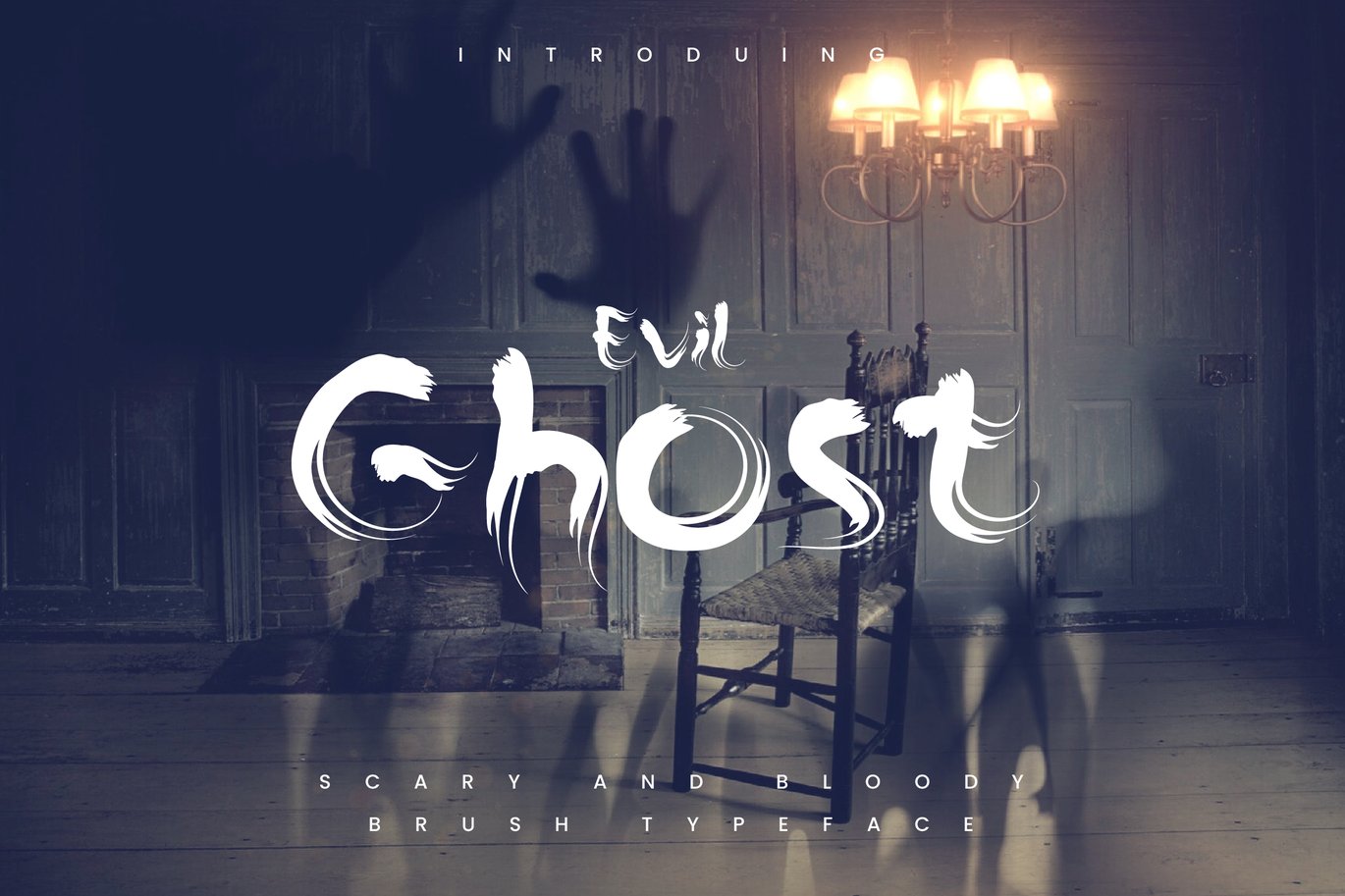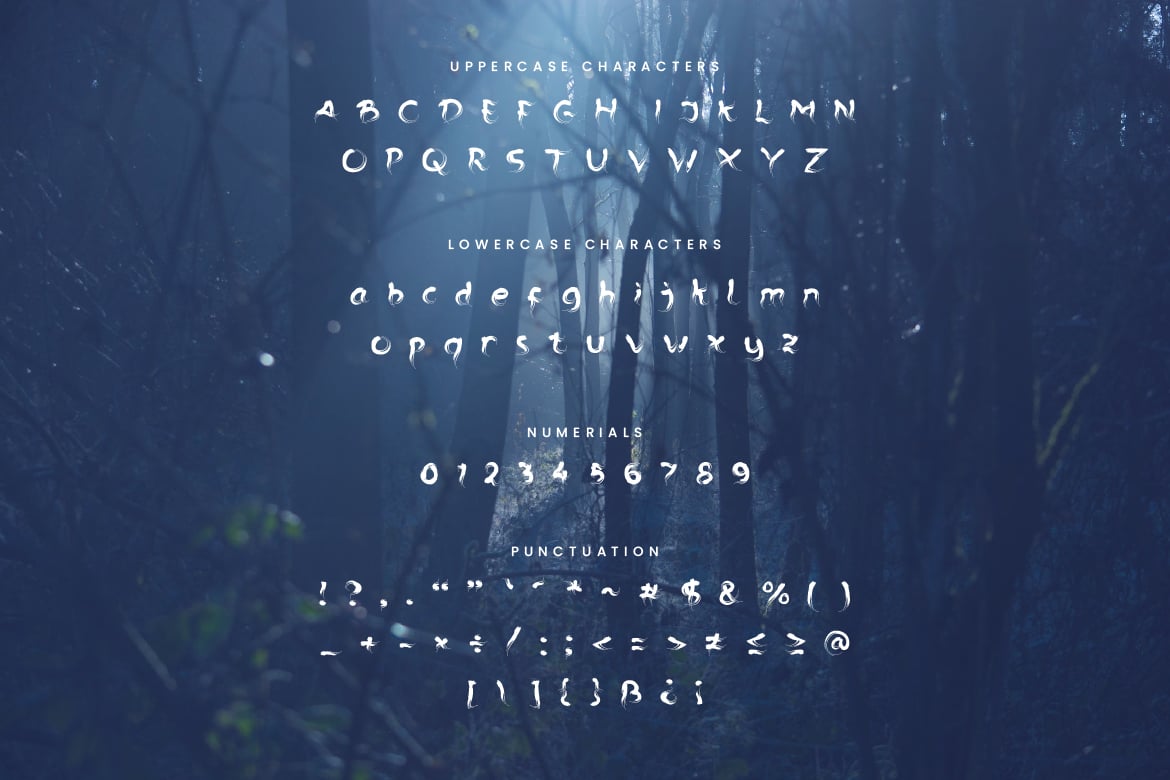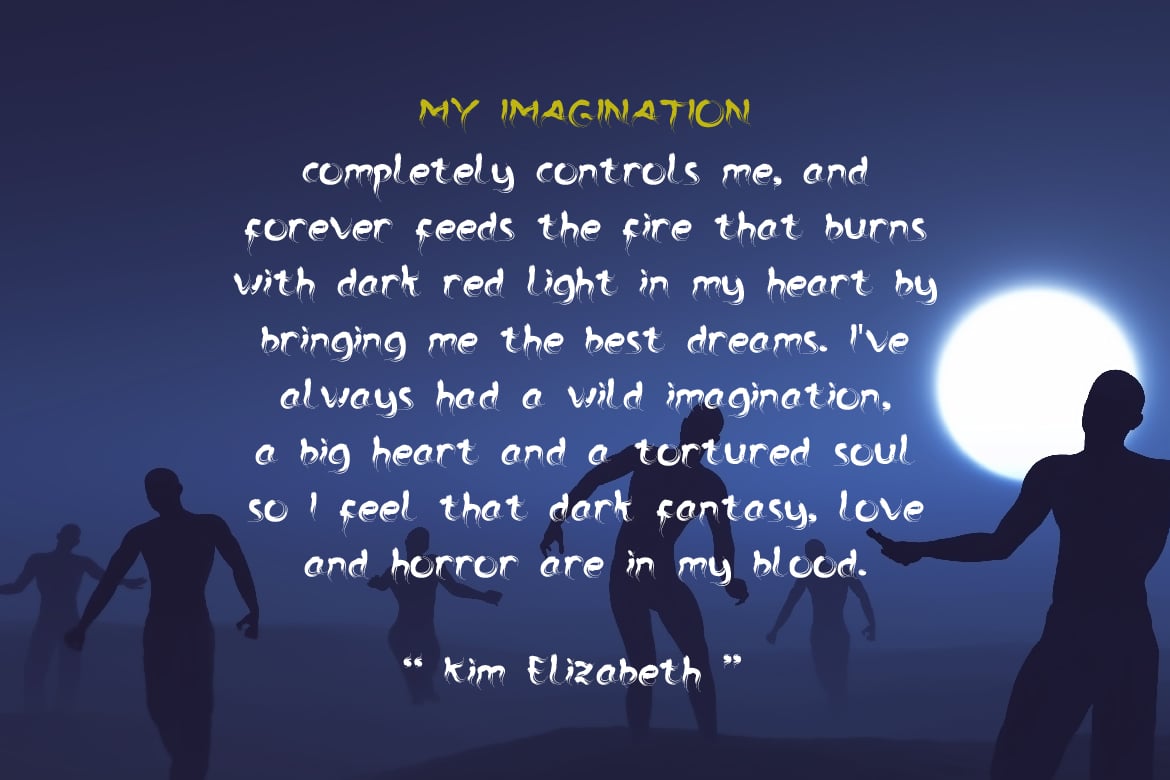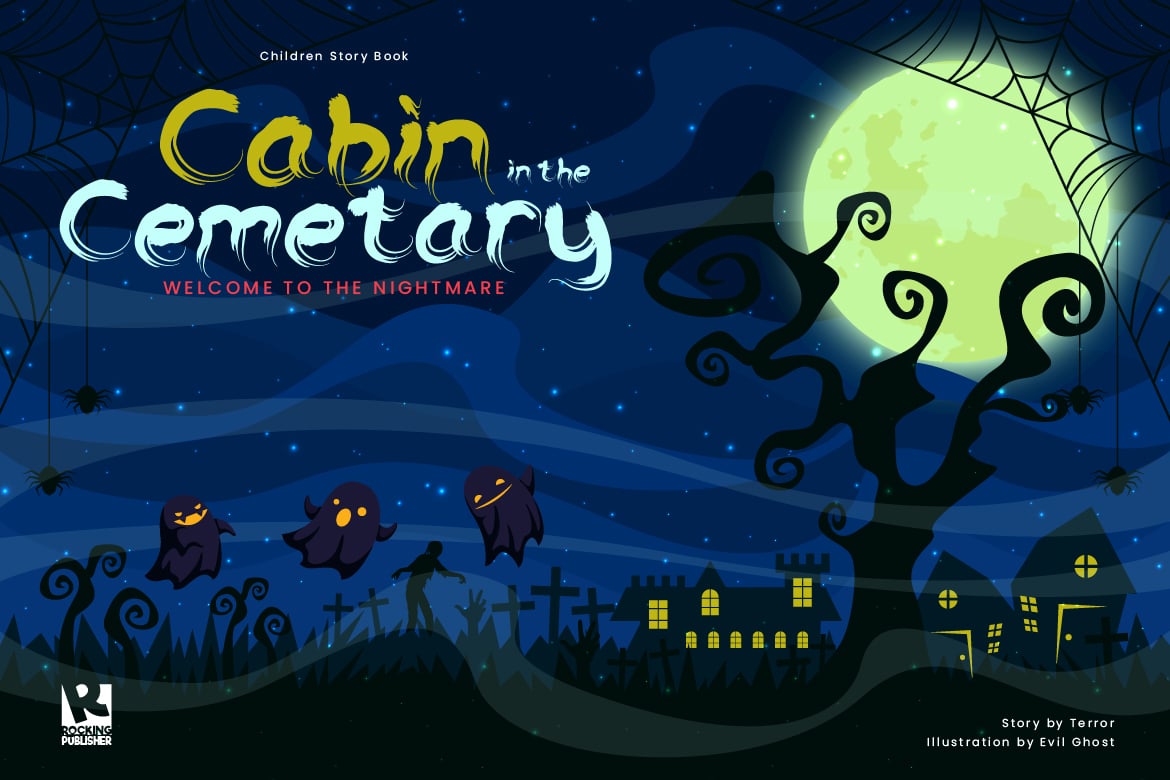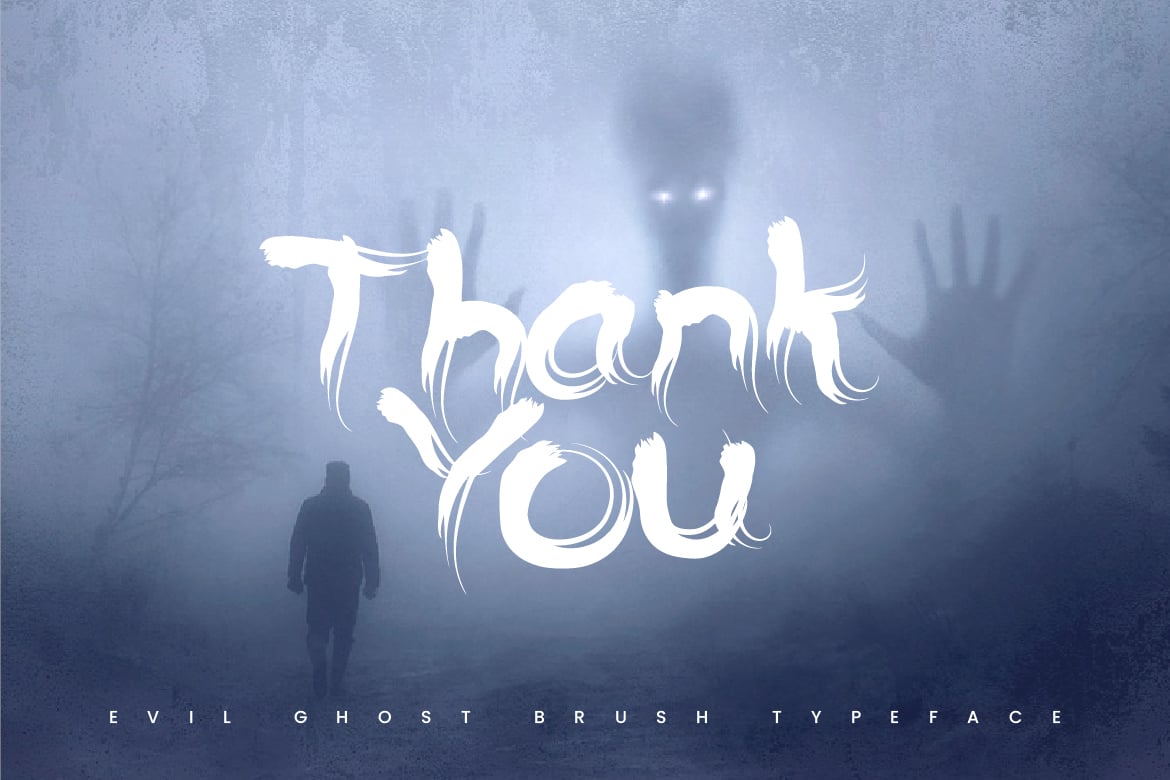
The Ghost – Haunted Display Typeface
Introducing The Ghost font. Are you looking for a bold and solid display brush font that has a scary haunted halloween feeling? We can help! Try to download our The Ghost font. The font is suitable to use for many occasion such as halloween, movie title, book title, event, and many more π